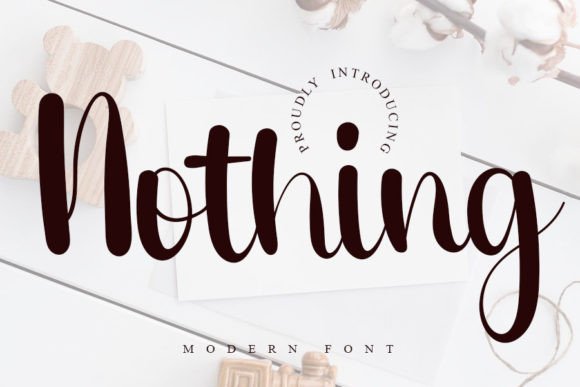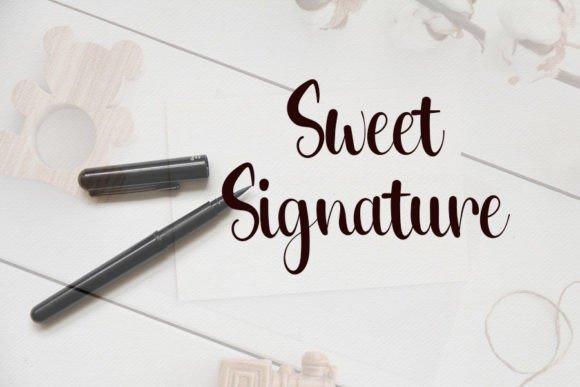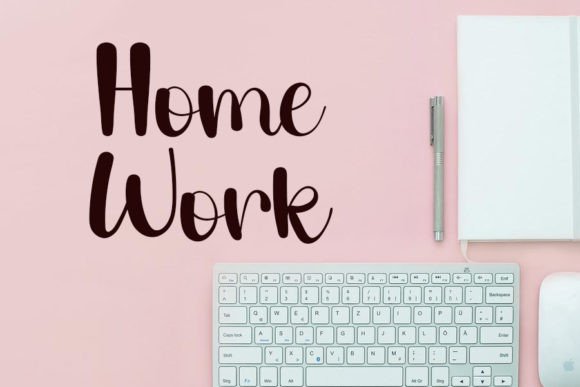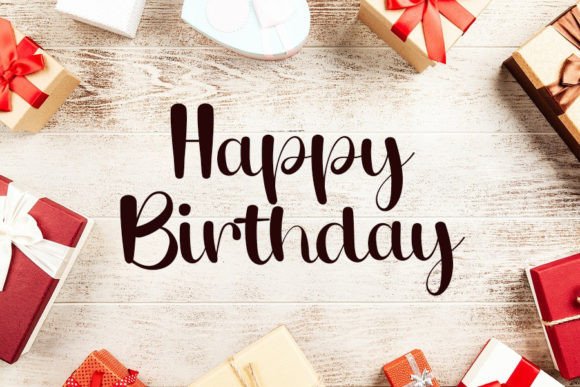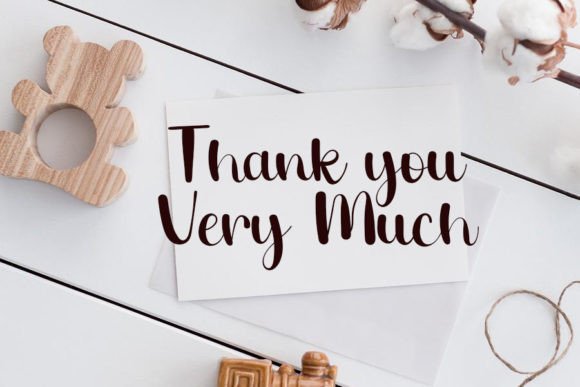
Nothing Font
Nothing Font: Fun and Casual Handwriting for Playful Designs
“Nothing” is a fun and casual handwritten font that brings a playful touch to your designs. It’s versatile for various creative applications, from crafts to digital design.
Key Features of Nothing Font
• Playful Style: Nothing adds a sense of fun and informality to your designs.
• Versatile Use: Suitable for many projects, including greeting cards and presentations.
• Authentic Look: Creates a personal and relatable connection with viewers.
Digital Design and Presentations
Nothing’s casual style is ideal for creating engaging digital content and informal presentations that resonate with audiences.
Crafts and DIY Projects
Use Nothing to add a personal touch to your crafting projects, making them more unique and expressive.
Greeting Cards and Invitations
The font’s playful nature makes it perfect for designing heartfelt greeting cards and casual invitations.
Why Choose Nothing Font?
Nothing offers more than just fun letters. Here’s why it stands out:
• Creates a lighthearted and approachable feel in your designs
• Versatile enough for both personal and professional projects
• Helps make your work more engaging and memorable
By using Nothing, you open up new design possibilities. Its casual style works well in many contexts, from social media graphics to poster designs. The font’s playful nature can inspire creative ideas and help you approach projects from a fresh, fun perspective.
Nothing in Branding and Marketing
For brands aiming to convey a friendly and approachable image, Nothing can be a valuable asset. Its casual style can help create logo designs and marketing materials that resonate with audiences seeking authenticity and relatability.
If you’re looking for a font that’s both fun and versatile, Nothing is an excellent choice. It’s perfect for adding a playful touch to your work, especially for projects that need a casual, approachable feel.
Explore how Nothing can transform your designs. From digital content to personal crafts, this font brings a delightful and engaging quality to your creations.